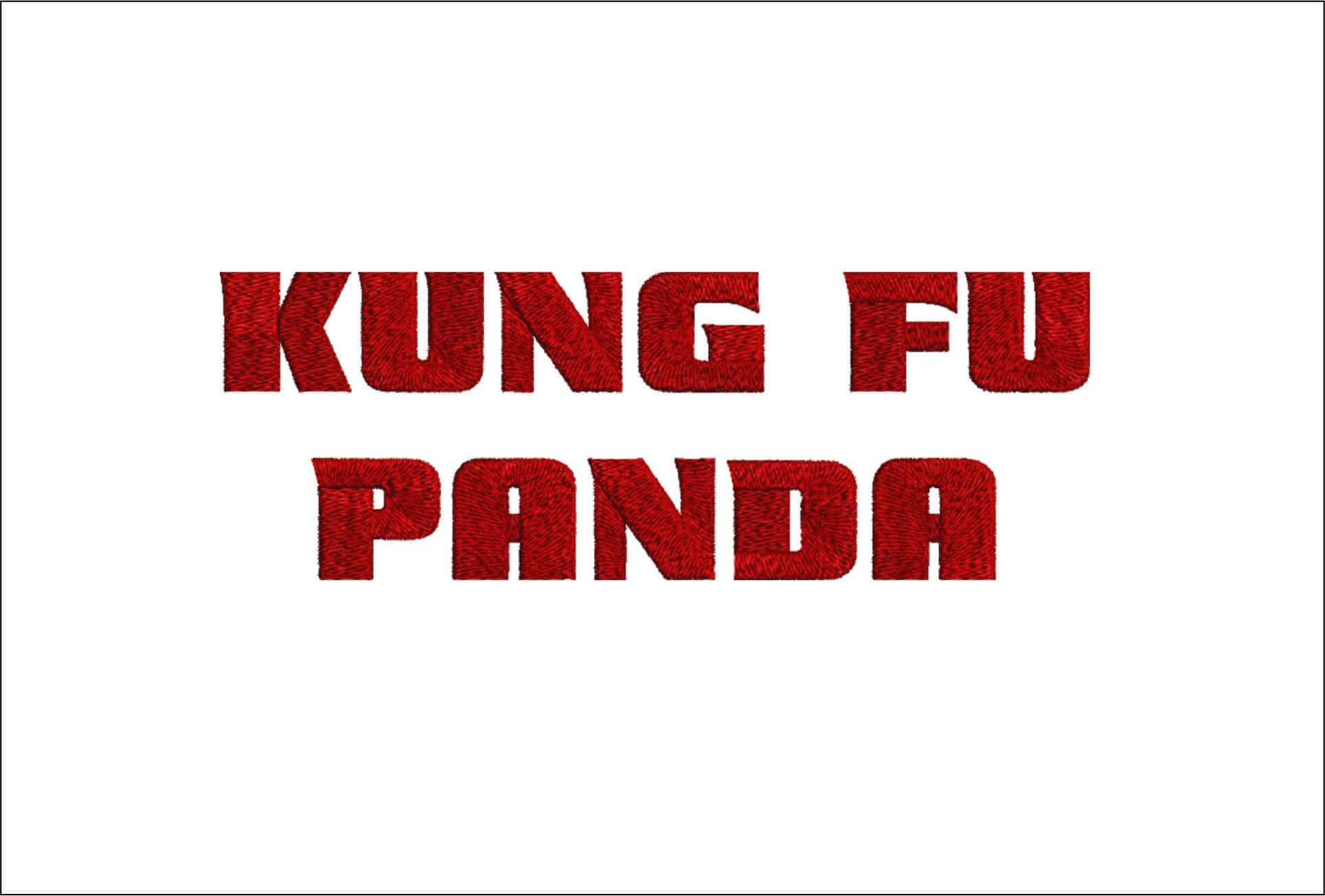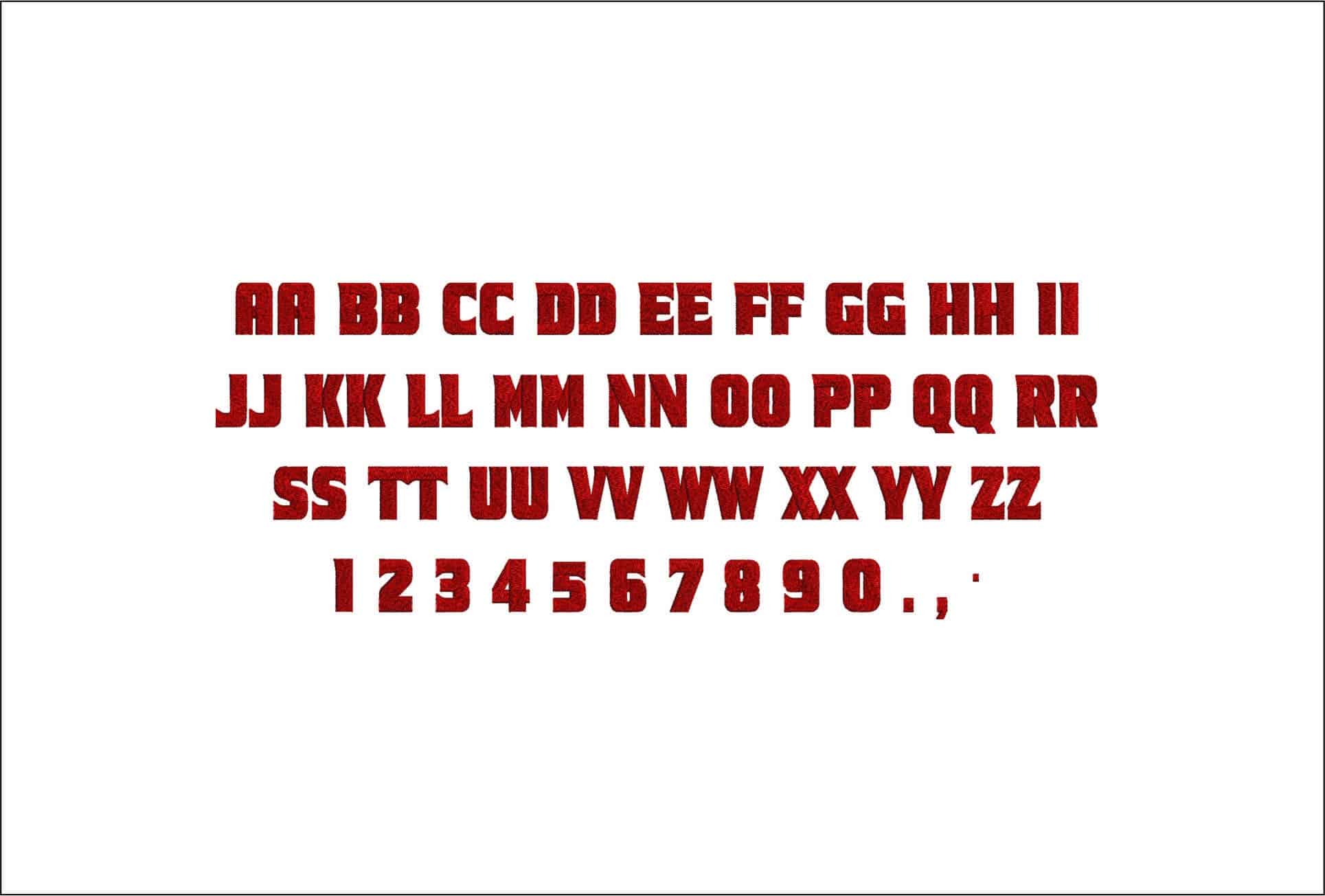
Kung Fu Panda Embroidery Font Set - 1" 1.5" 2" 2.5" 3" and 4" - Machine Embroidery Alphabet Font - instant download
Bold red KUNG FU PANDA lettering in a chunky embroidered alphabet style that stands out clearly on jackets, bags and kidswear.
Bring bold cartoon lettering to your stitching with this Kung Fu Panda embroidery font set, styled in thick uppercase block letters across a neat two-line layout. The solid red lettering gives the name real presence, making it a strong choice for fans who want the words themselves to do the talking. It suits character-themed projects, children’s clothing and gift makes where you want a title treatment that reads clearly at a glance.